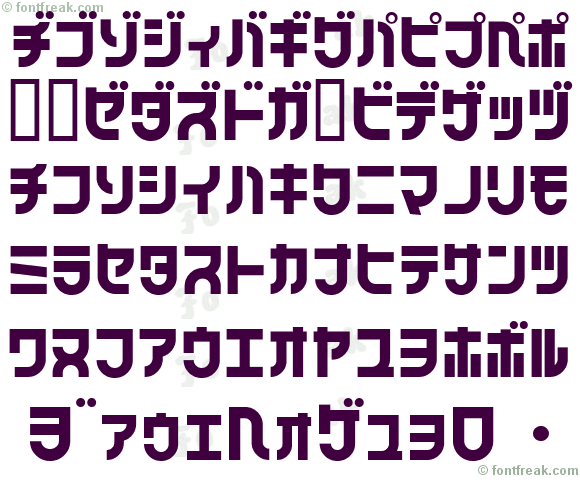
GauFontDonutShop
GauFontDonutShop is a striking display font that falls into the decorative category, crafted by GRAPHIC ARTS UNIT. With its playful and whimsical design, this font features bold, rounded letterforms that evoke a sense of fun and approachability. The stroke weight is consistent, giving it a solid presence, while the rounded edges and slight variations in thickness add a touch of character. The spacing is well-balanced, ensuring legibility even in larger sizes, making it a perfect choice for eye-catching headlines or titles.
This font is particularly well-suited for a variety of creative projects. It shines in restaurant menus, where its inviting style can enhance the overall dining experience. Additionally, GauFontDonutShop is an excellent choice for food-related branding, such as bakery logos or dessert packaging, where its playful aesthetics can attract attention. Wedding invitations can also benefit from this font, especially when aiming for a lighthearted and joyful vibe. Furthermore, it works beautifully on social media graphics, ideal for content creators looking to engage their audience with a fun and memorable typographic choice.
What truly sets the GauFontDonutShop font apart is its ability to convey a sense of joy and community, making it an ideal choice for projects that seek to create an inviting atmosphere. For those interested in adding a touch of whimsy to their designs, the GauFontDonutShop font free download is a must-try.